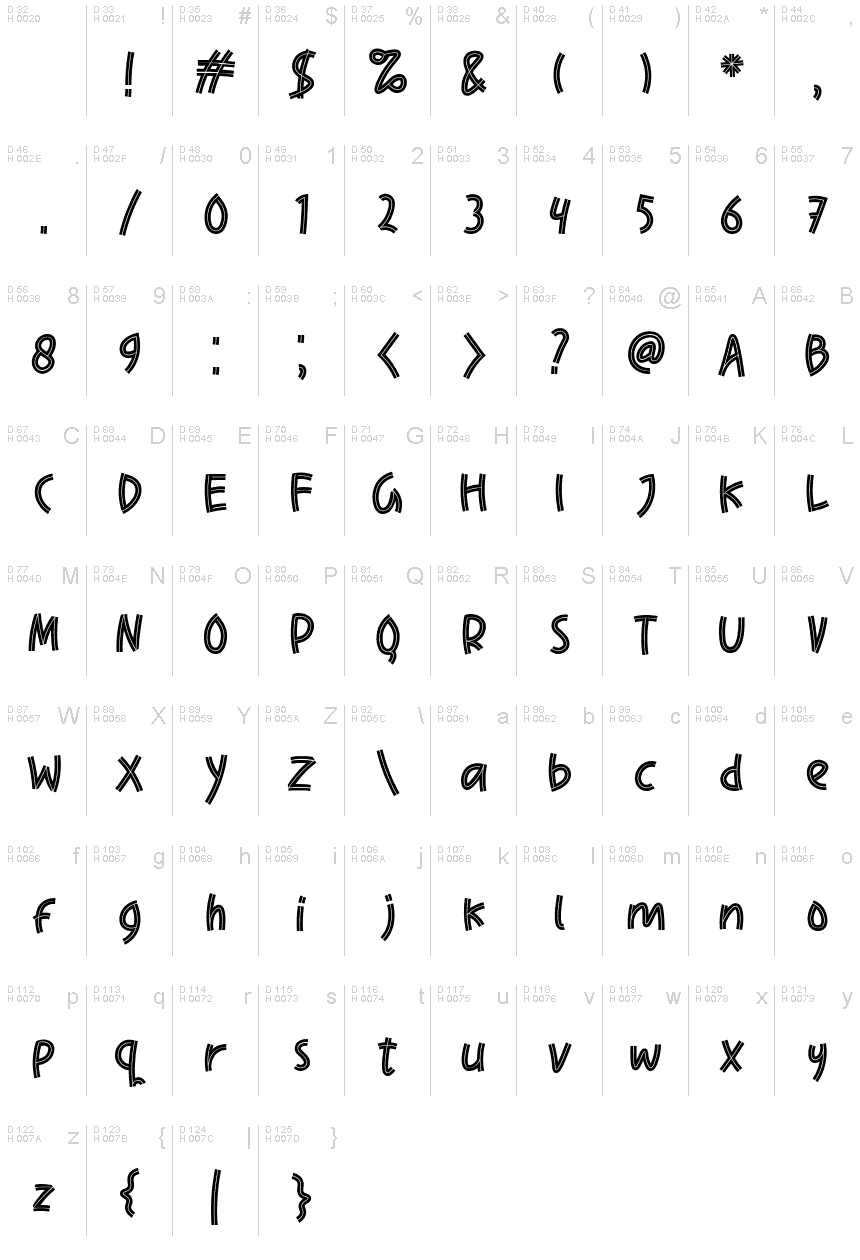
Yumna Regular
Get ready to add a splash of fun and playfulness to your projects with Yumna, the latest creation by WAP Type. This display font boasts a whimsical and cartoonish style that is perfect for a variety of projects, from children's books and posters to branding materials and social media graphics. Embrace the bubbly curves and quirky details of Yumna to create designs that are sure to bring smiles to faces. With its bold and eye-catching appearance, this font is guaranteed to make your message stand out. Add a touch of lightheartedness to your next project with Yumna!